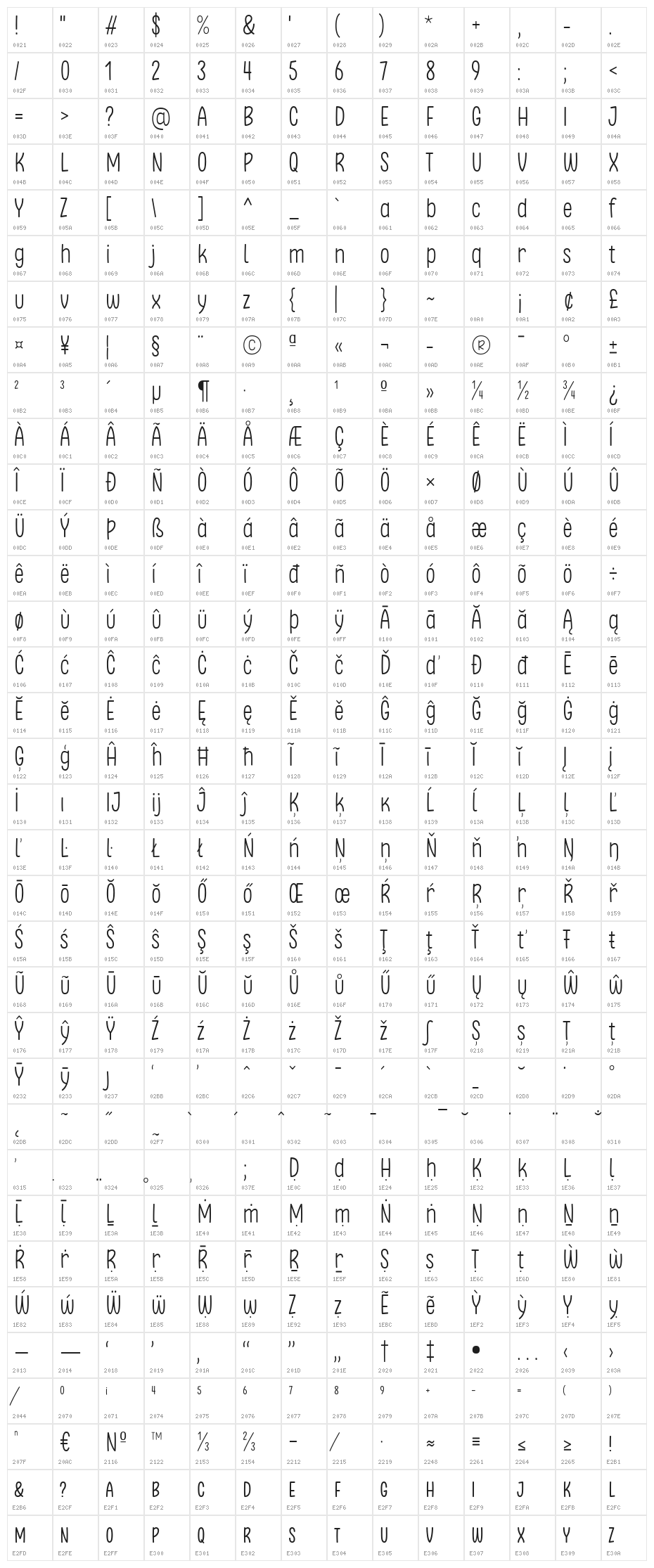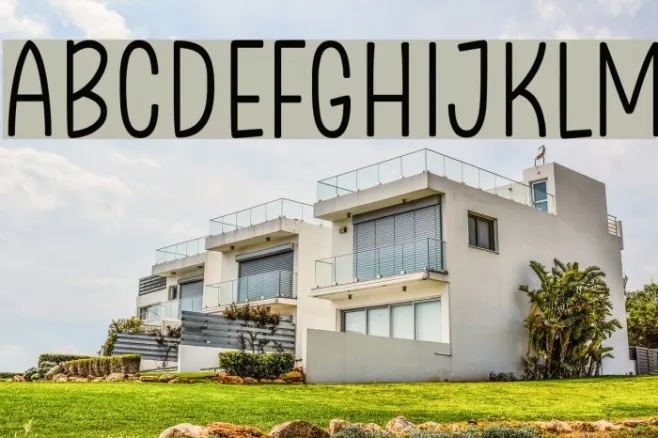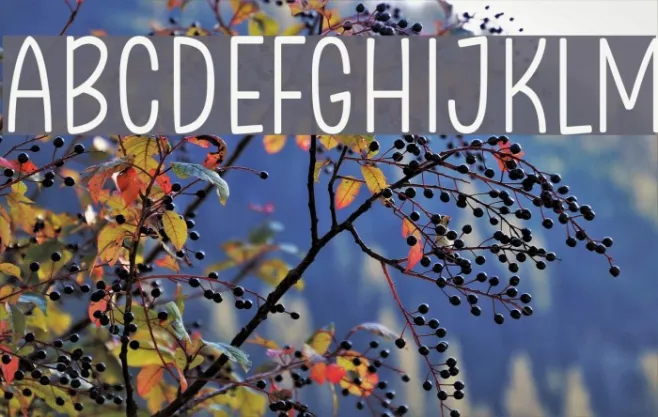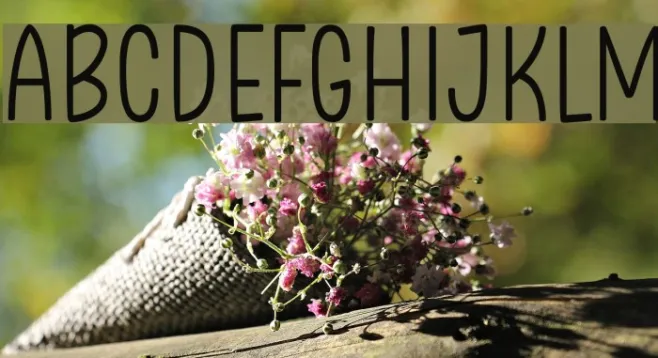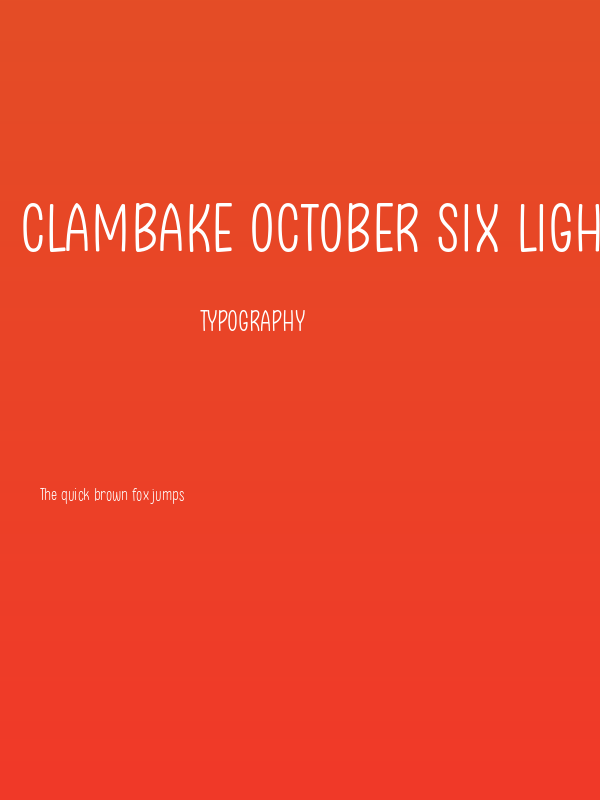
Clambake October Six Light Font
Clambake October Six Light Description
This font features a playful and casual style with rounded edges and a slightly condensed form. The characters are tall and narrow, giving it a unique and approachable appearance. The lowercase letters maintain a consistent height, while the uppercase letters are slightly more elongated, adding to the font's quirky charm. The numerals are clear and legible, matching the overall style of the alphabet. Special characters are well-integrated, maintaining the font's cohesive look. This font is ideal for projects that require a friendly and informal touch, such as children's books, casual branding, or playful invitations.
| Overall Style | Playful, Casual |
| Proposed Projects | Children's books, casual branding, playful invitations, greeting cards. |